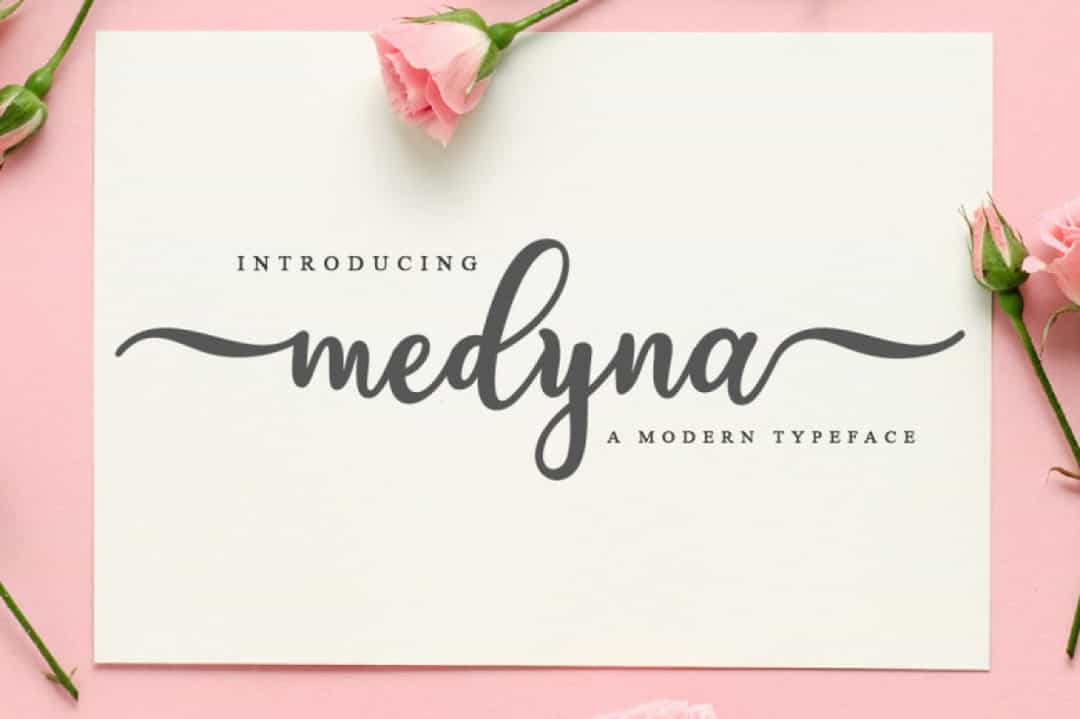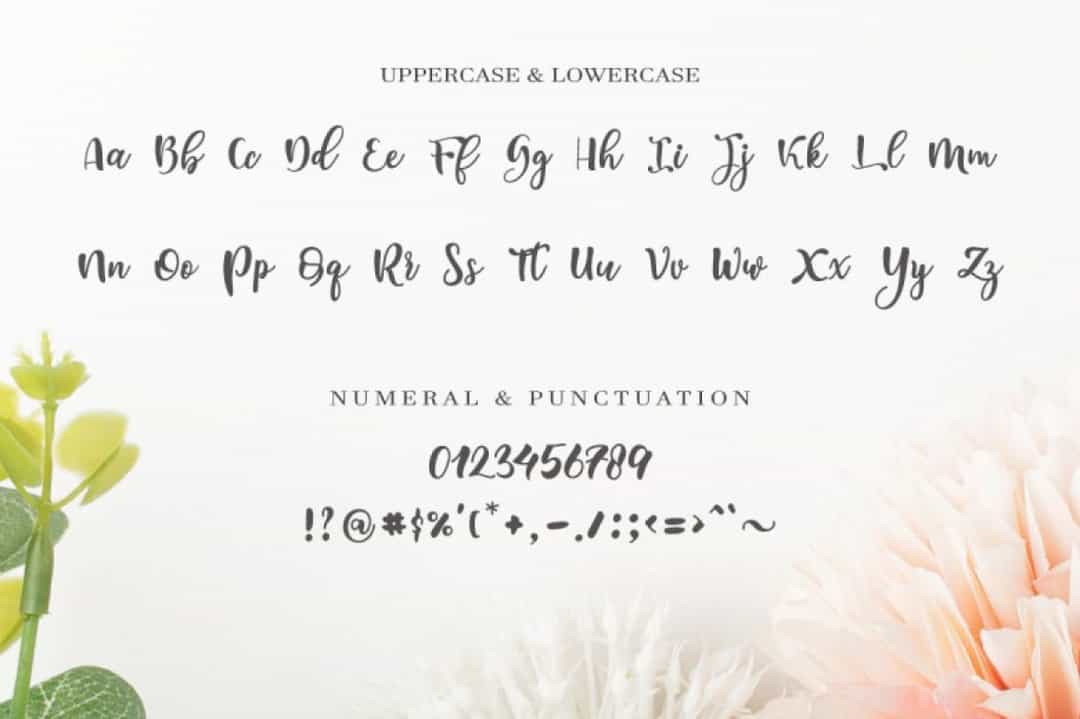
Medyna Font is a stunning calligraphy typeface featuring characters that move along the bottom edge. Perfect for adding some luxurious sparkle to any design project! PUA encoded, so all its amazing characters and ligatures can be quickly accessed!